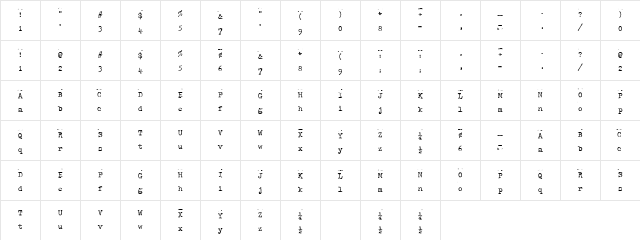
HammerKeys Regular
Design Context for HammerKeys Typeface
HammerKeys takes a measured approach to typography — its balanced proportions and neutral character make it a reliable workhorse for both digital and print work.